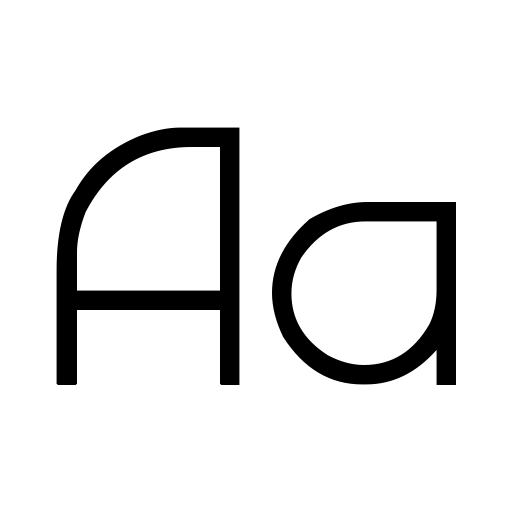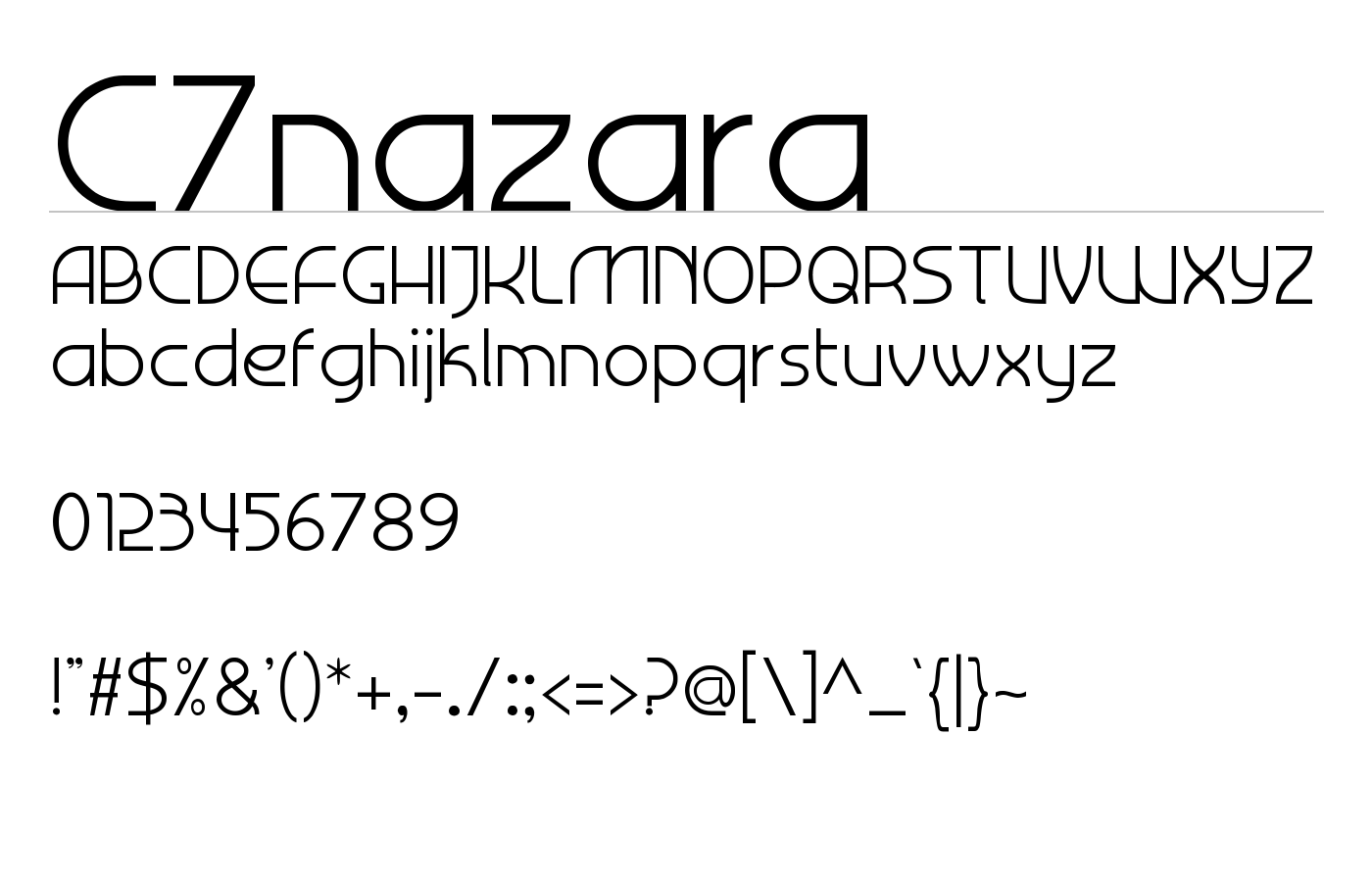
C7nazara is a modern, sleek sans serif font characterized by its thin, clean lines and geometric letterforms with a distinctive, art deco-inspired style. Its regular weight and well-balanced spacing make it ideal for sophisticated branding, fashion, and editorial projects that require a contemporary yet elegant look. This font works particularly well in headlines and logos where its unique shapes and minimalist personality can stand out.
C7nazara Font
About C7nazara Font
| Designer | Situjuh Nazara |